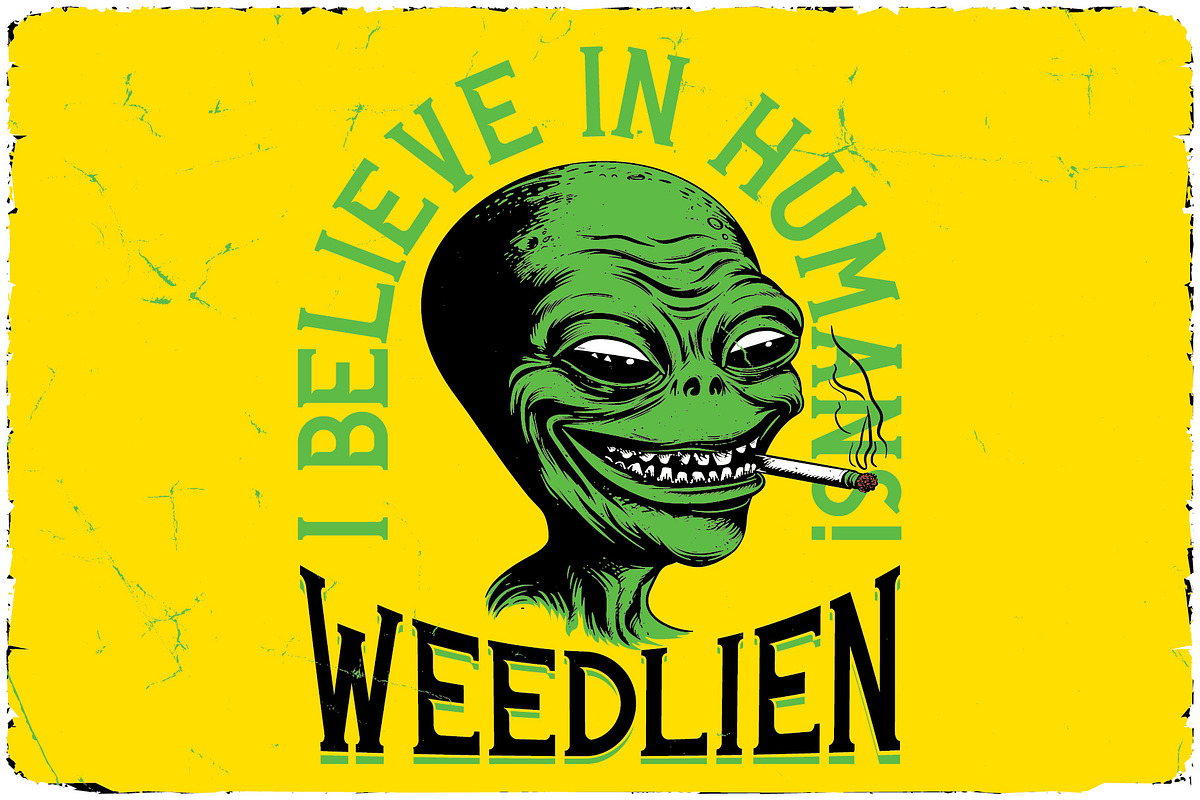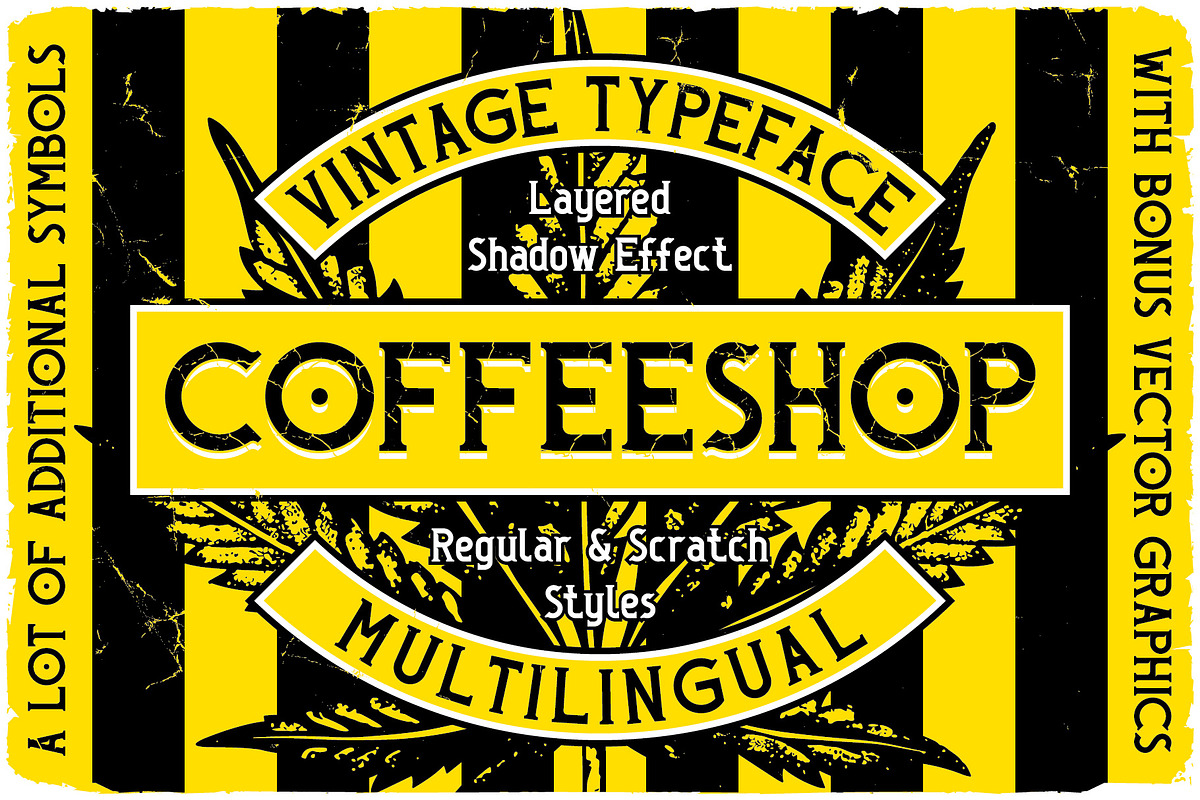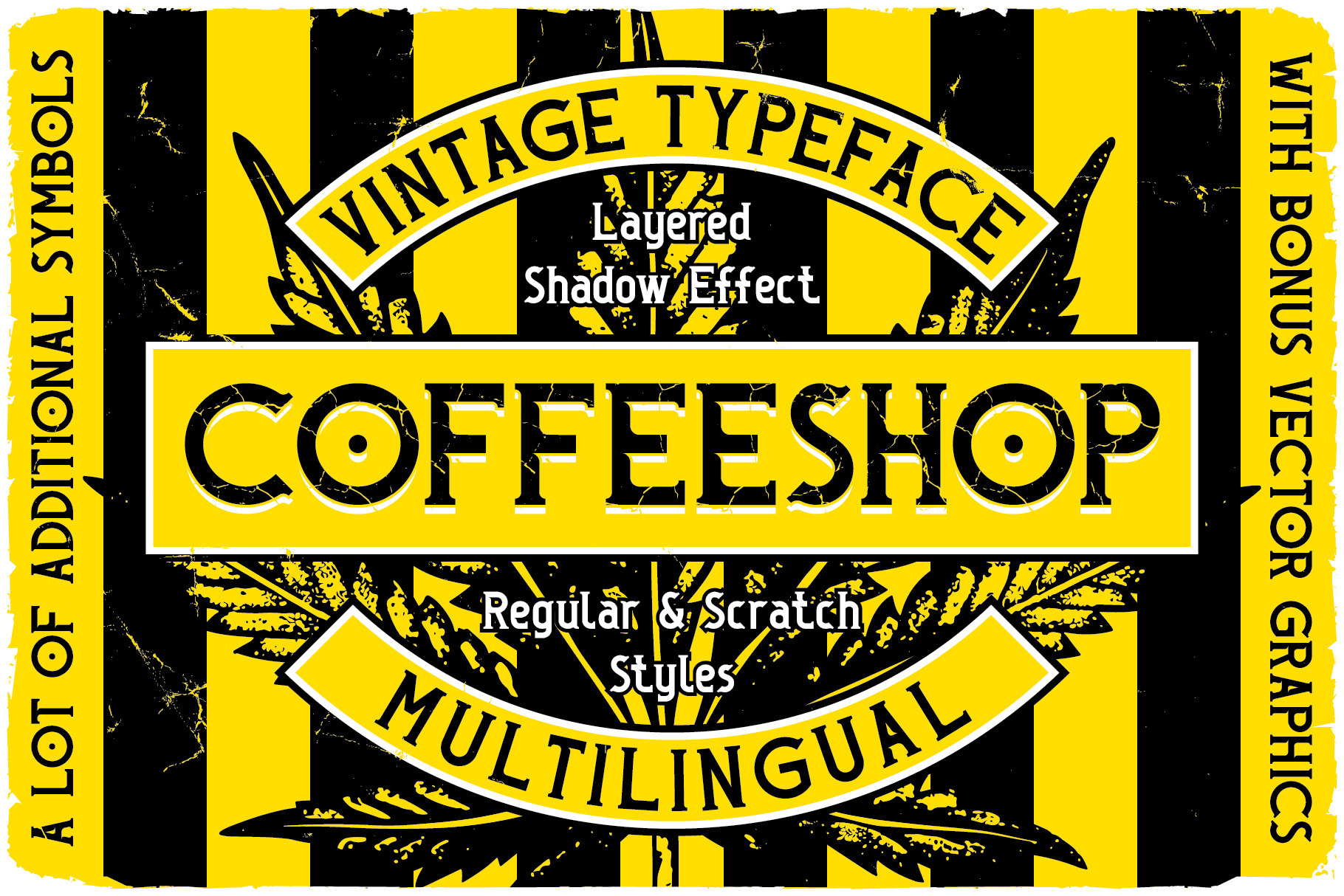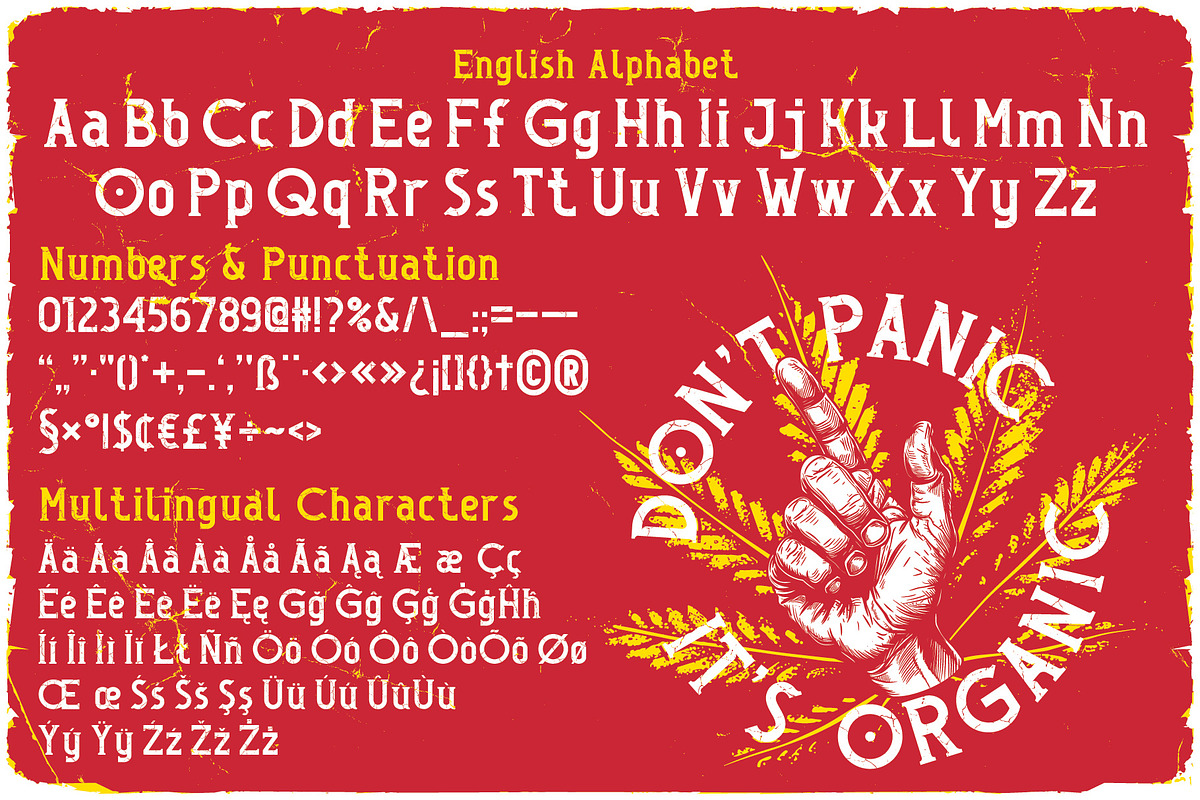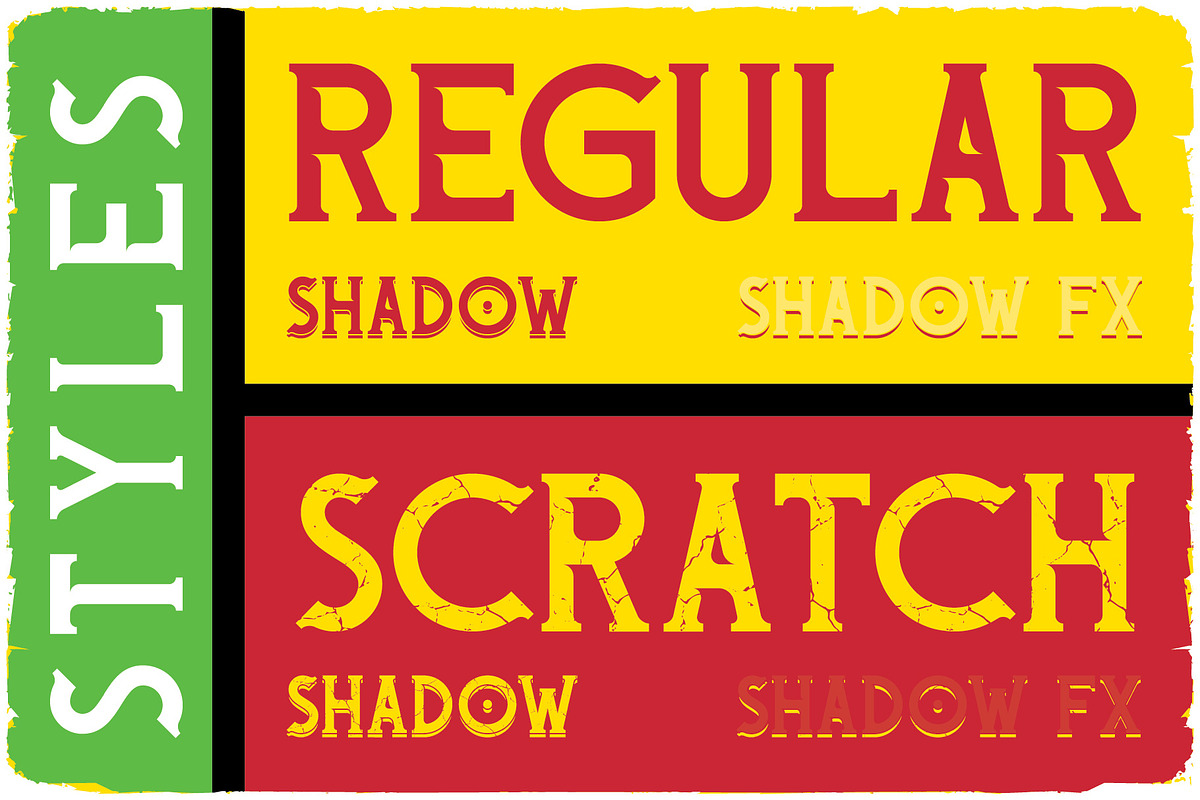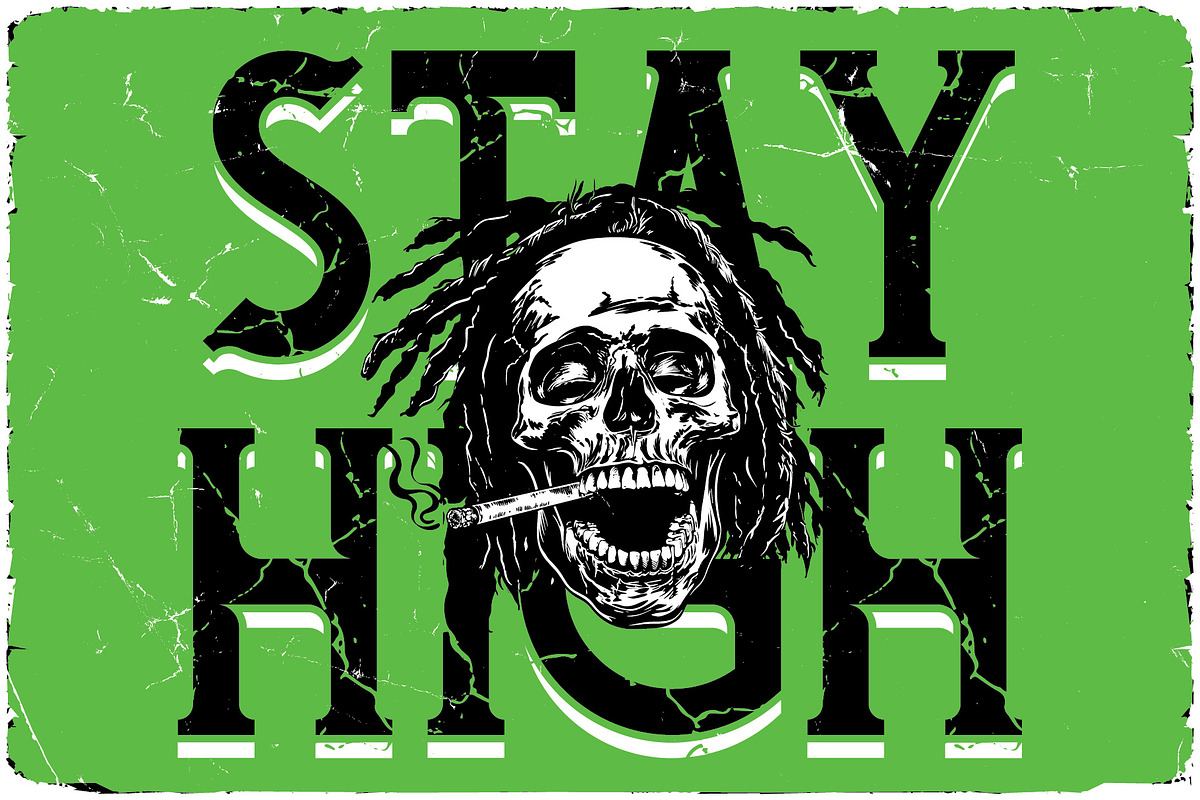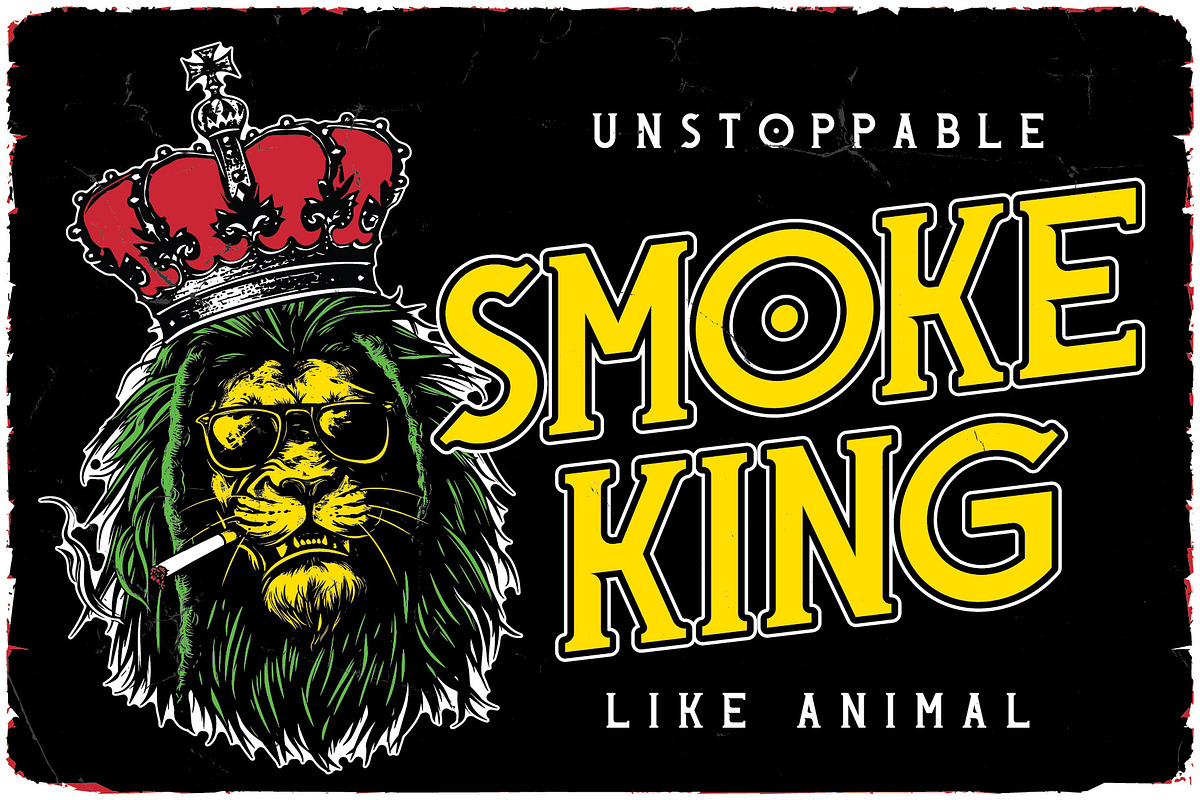
Coffeeshop Label Font
Introducing vintage label font named Coffeeshop. This font family has an additional characters and multilingual support (check out all available characters on preview). The font family has six styles: Regular, Shadow, Shadow FX, Scratch, Scratch Shadow, Scratch Shadow FX. This font will look good on any vintage styled designs like a poster, T-shirt, label, logo, etc.
- A lot of additional symbols and multilingual support.
- Shadow FX layer style. Just copy text on Regular (or Scratch) style, paste in the same position and change style to Shadow FX (or Scratch Shadow FX). This way you can create any color combination from - the font, its shadow and its texture.